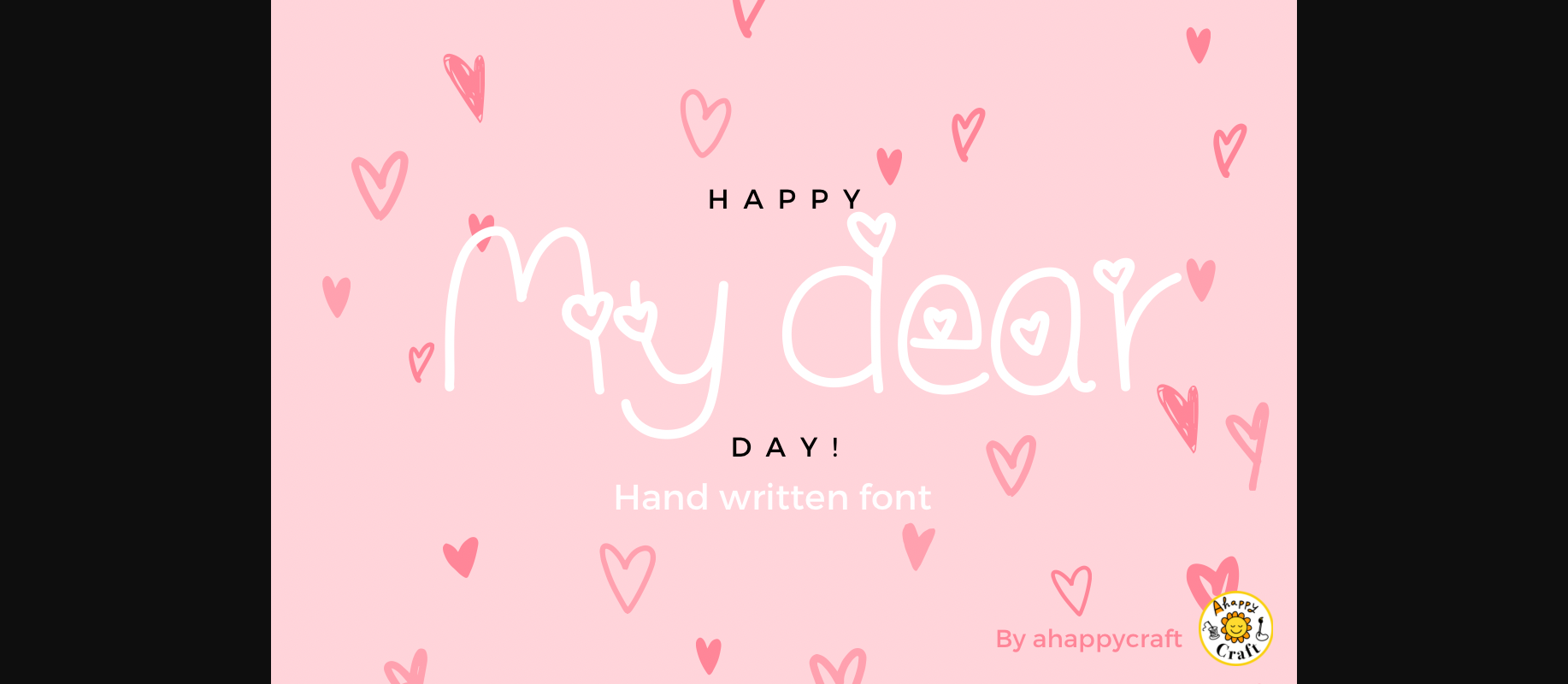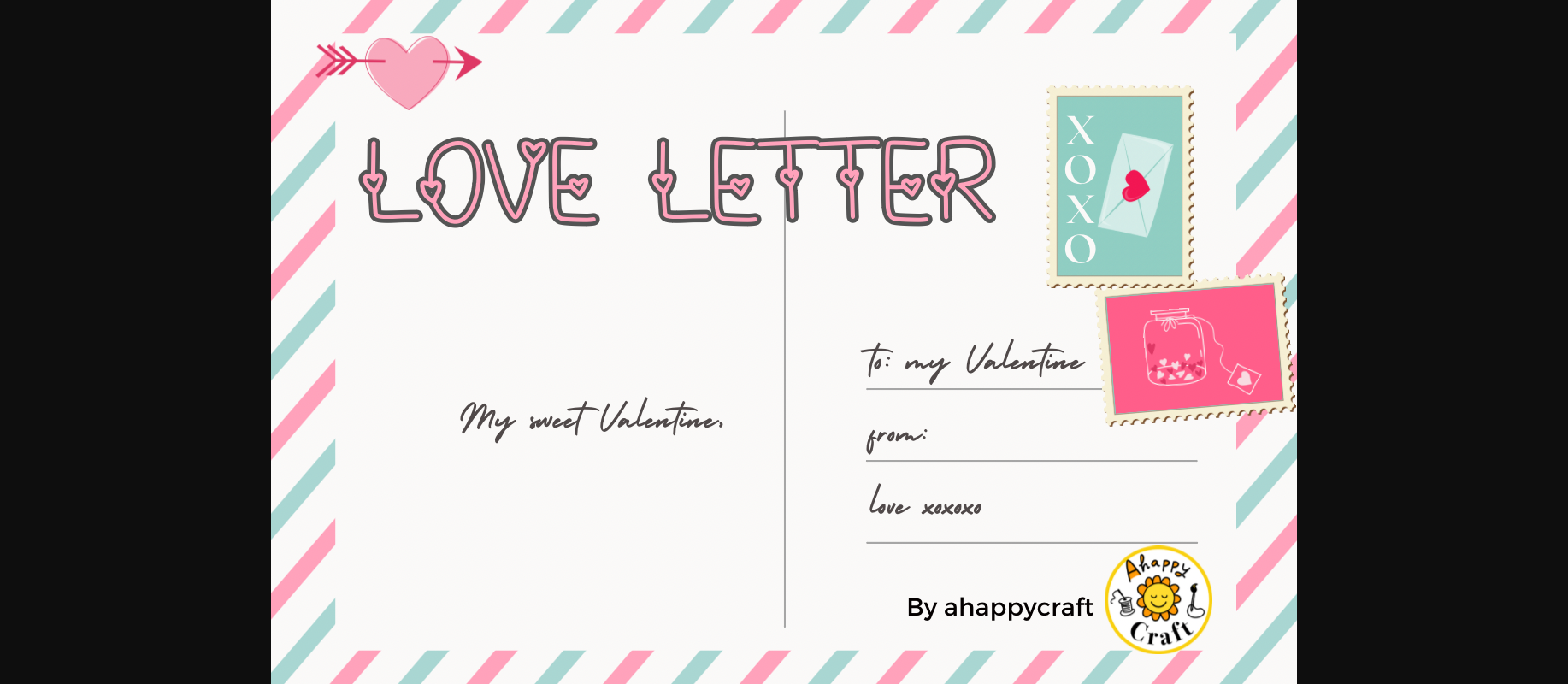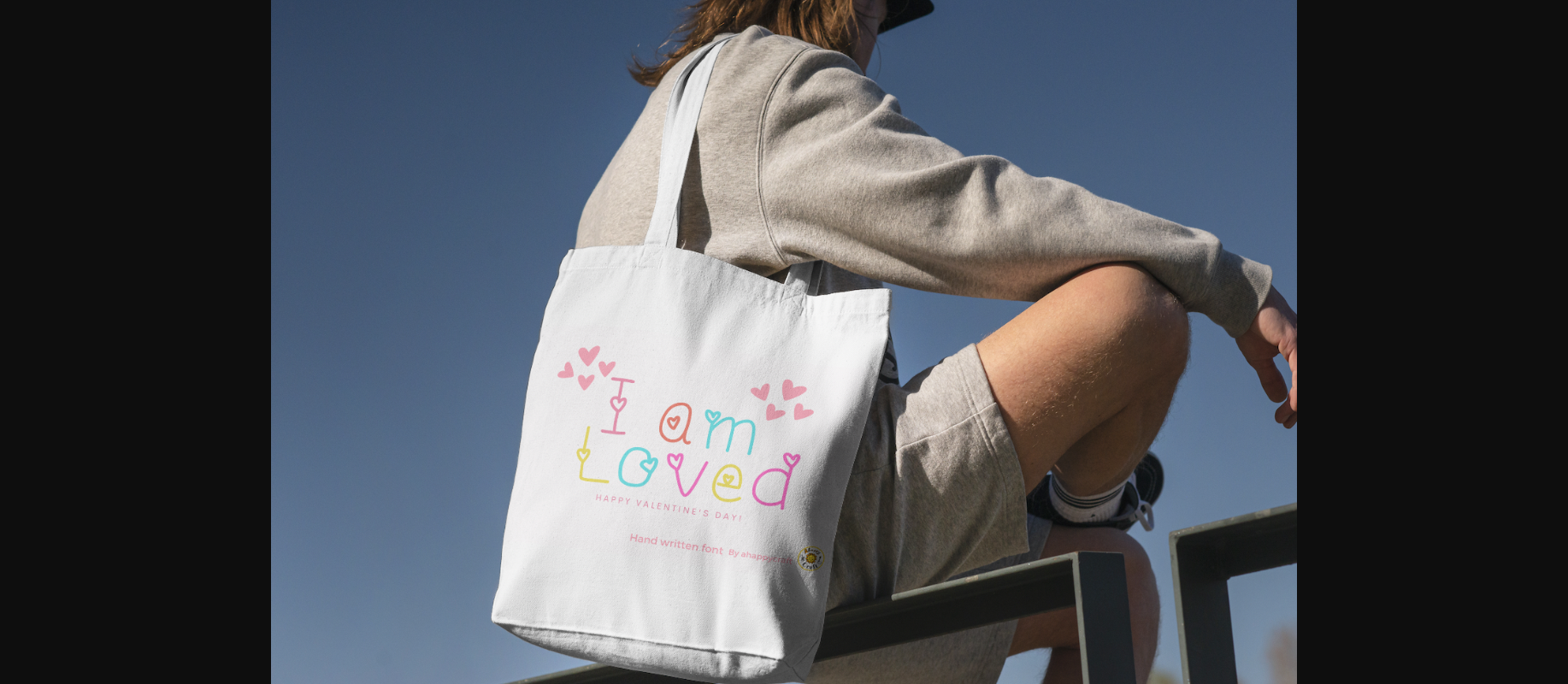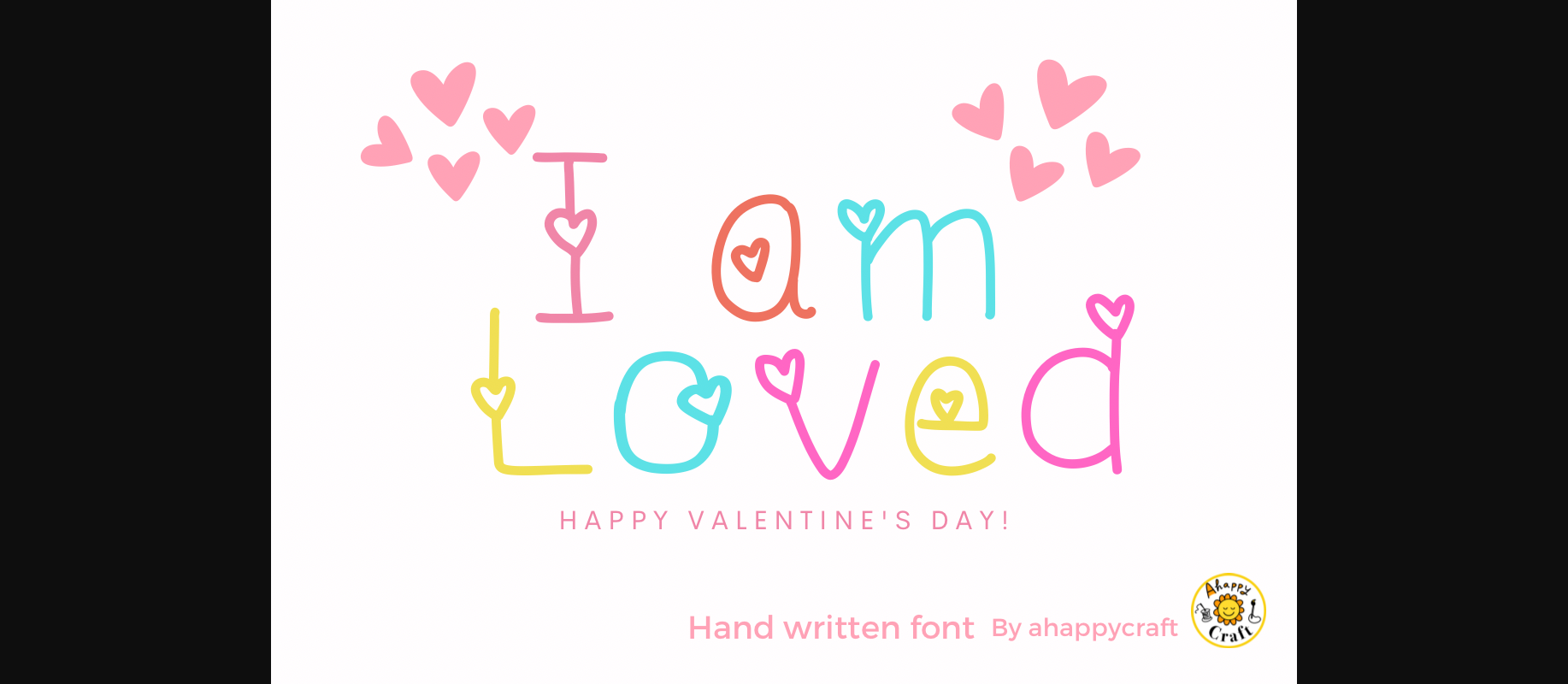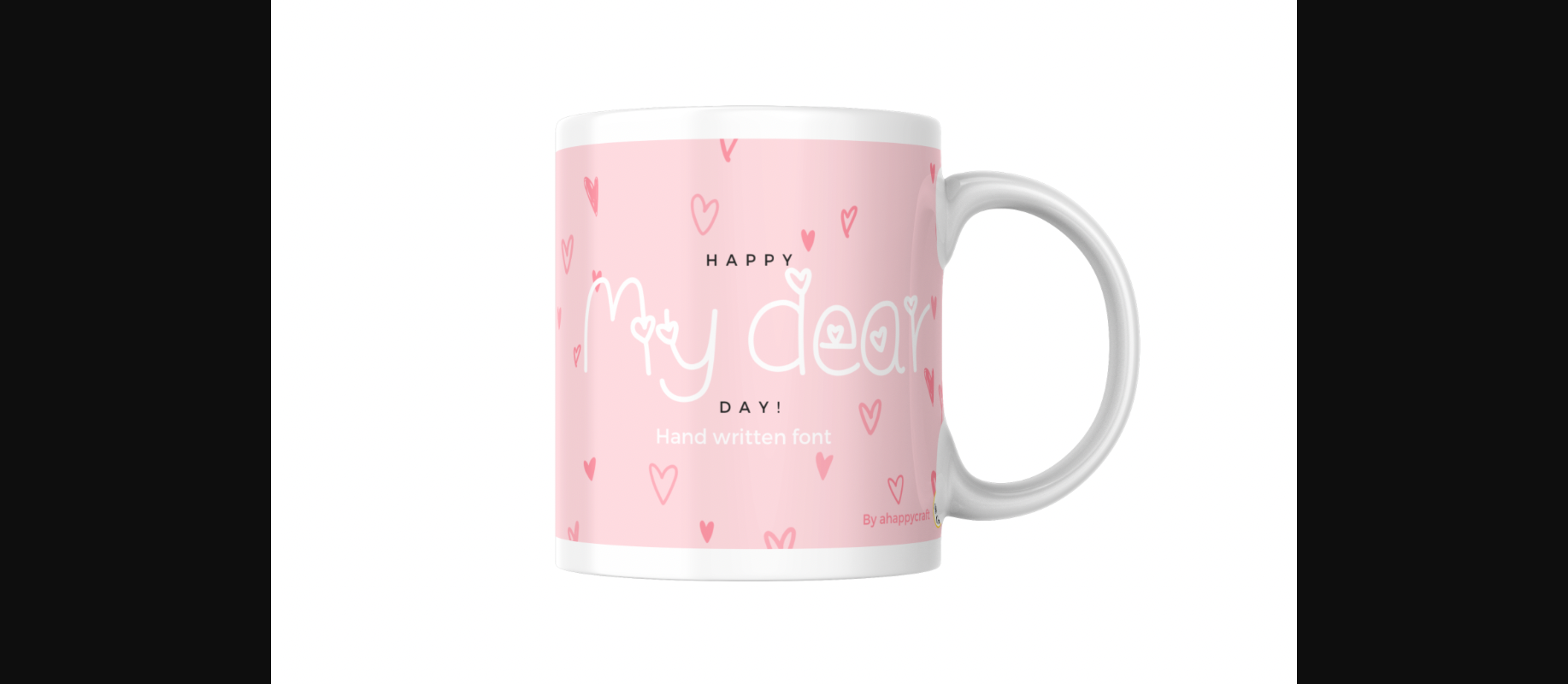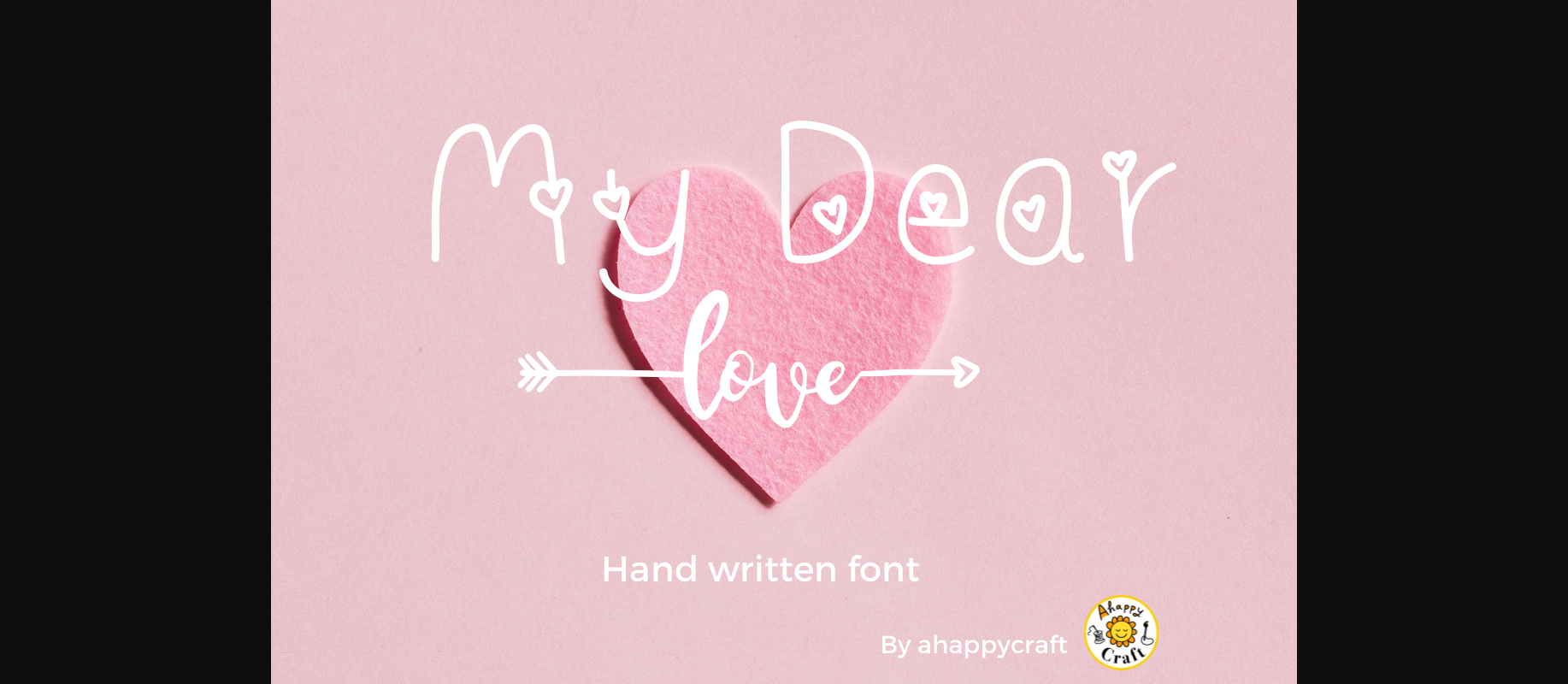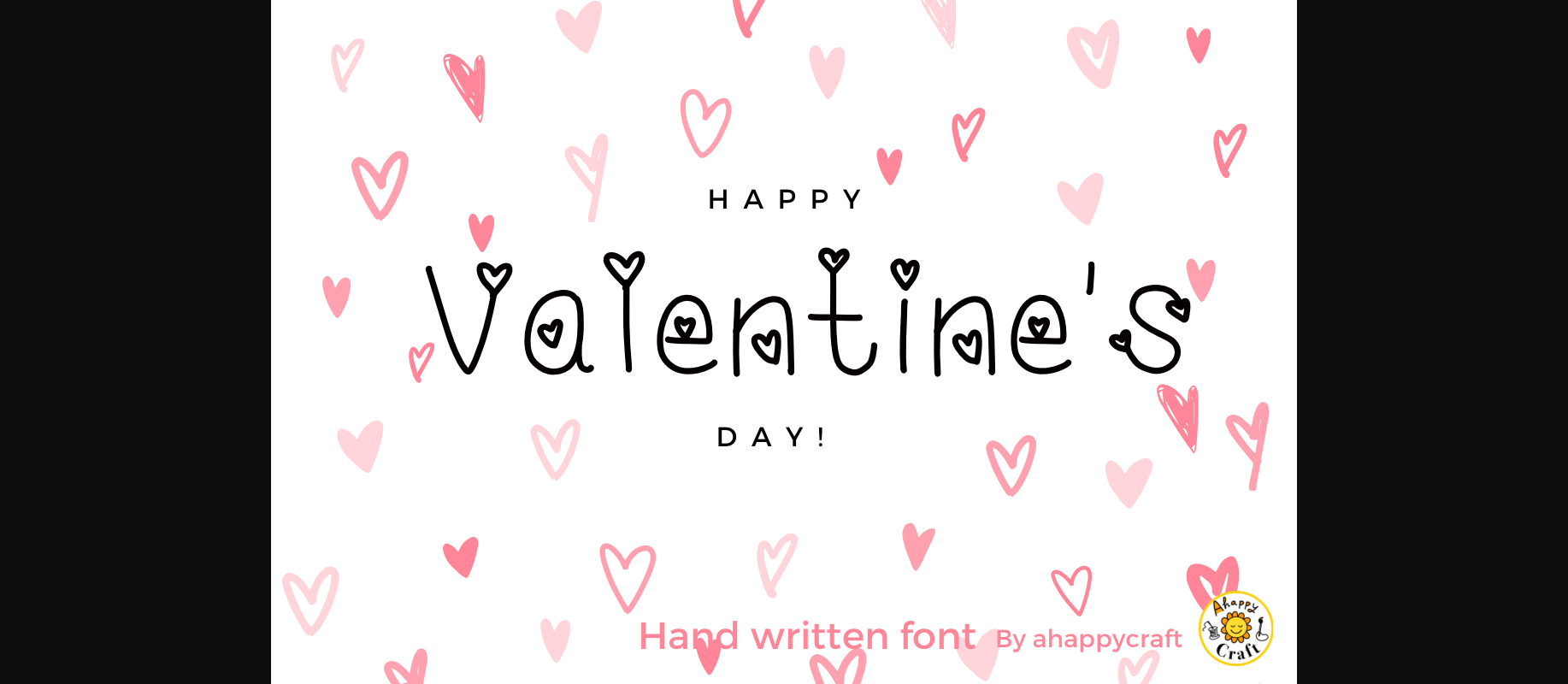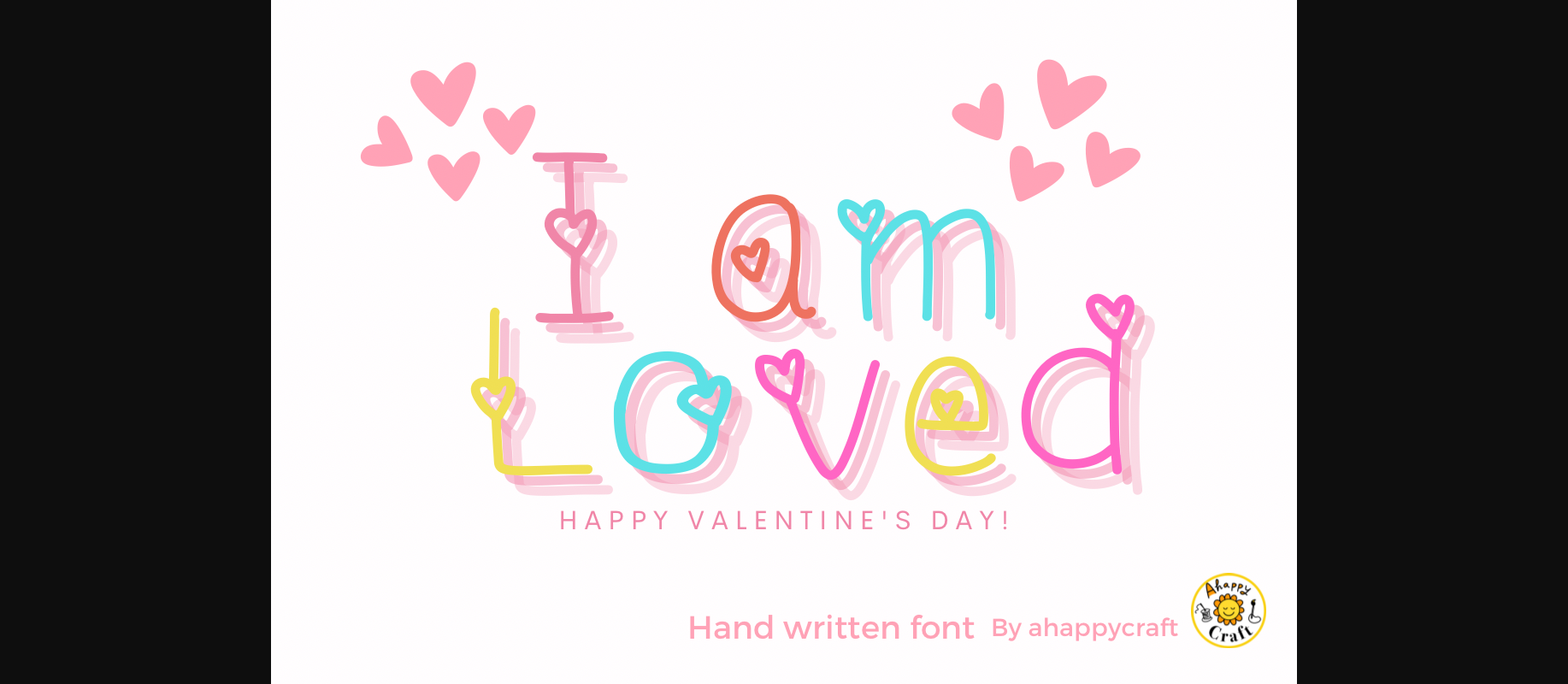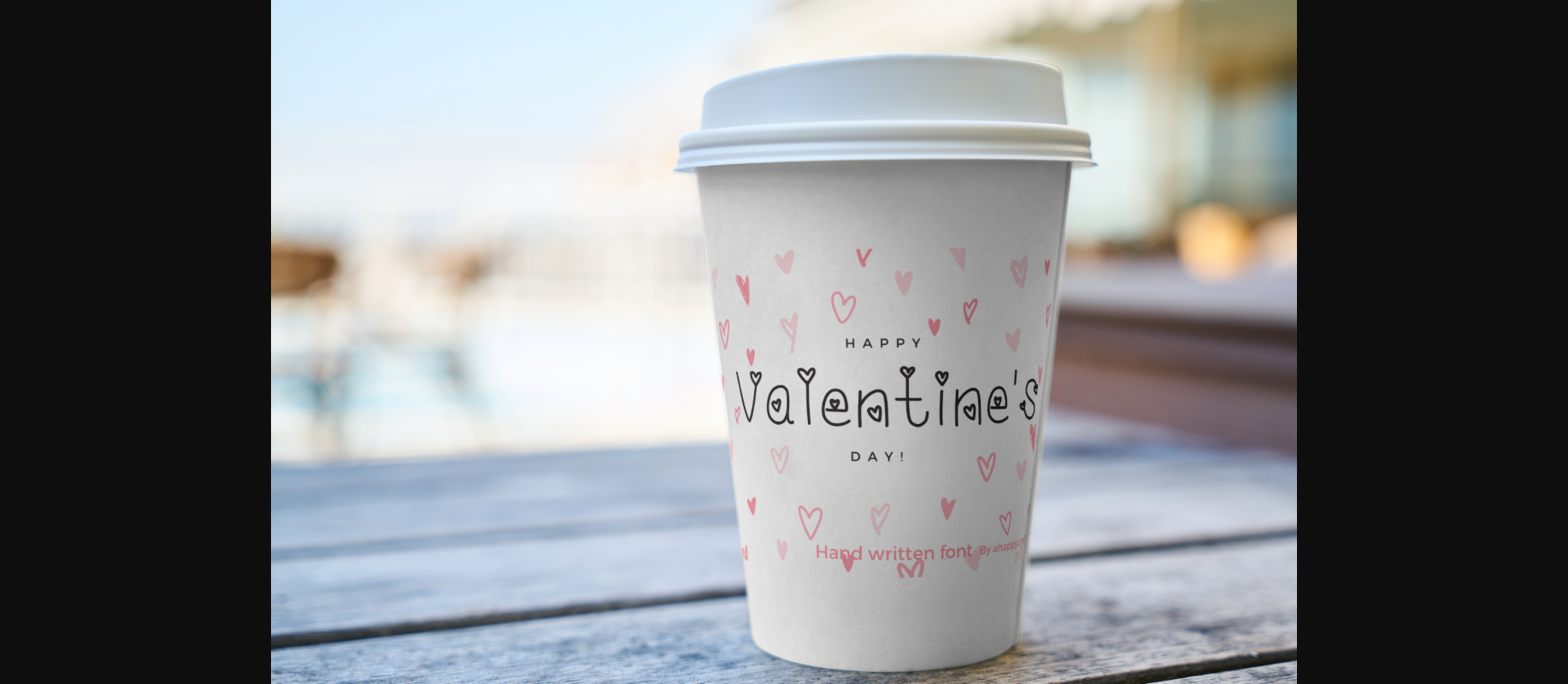
HomeDecorative FontsMy Dear Font Decorative Fonts My Dear Font FacebookXPinterestWhatsApp 1 of 11 ... My Dear Font Poster 2... My Dear Font Poster 3... My Dear Font Poster 4... My Dear Font Poster 5... My Dear Font Poster 6... My Dear Font Poster 7... My Dear Font Poster 8... My Dear Font Poster 9... My Dear Font Poster 10... My Dear Font Poster 11... About My Dear Font My dear is a cute and playful handwritten font adorned with lovely hearts. Add it to your creative projects and you will love the results! DOWNLOAD NOW People also explored Nendora Font Hanging Font Thank You Baby Font Shepherd Font California Street Font Roockay Koralens Font Wickedly Font Fleurious Font 452 0 TagsMy DearMy Dear Font Previous articleFalove FontNext articleNaive Deco Sans Font LEAVE A REPLY Cancel reply Comment: Please enter your comment! Name:* Please enter your name here Email:* You have entered an incorrect email address! Please enter your email address here Website: Save my name, email, and website in this browser for the next time I comment. Personal Use Free Rasiday Personal Use Free Read more about this font Penelope Brush Script Font Personal Use Free Read more about this font Font Slice Personal Use Free Read more about this font Manhattan Personal Use Free Read more about this font BLOG Best Fonts for T-Shirt Design – Top 2025 Picks In 2025, t-shirt design has become more than just fashion—it's a form of self-expression. Whether you're... To increase your work productivity, choose the most readable fonts. The 10 Best Handwriting Fonts to Add Personality to Your Designs Exploring Font Trends